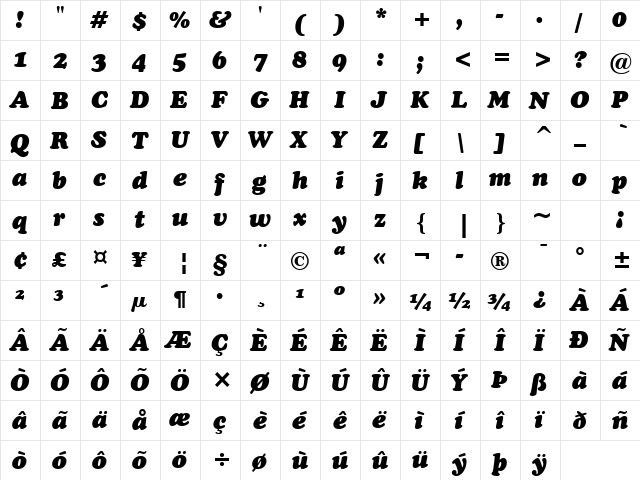
Cooper BlkIt BT Black Italic Font Preview
Cooper BlkIt BT Black Italic
Cooper BlkIt BT Black Italic Font Details
Design Context for Cooper BlkIt BT Typeface
Cooper BlkIt BT takes a measured approach to typography — its balanced proportions and neutral character make it a reliable workhorse for both digital and print work. Its italic angle brings a sense of urgency and motion to the letterforms.